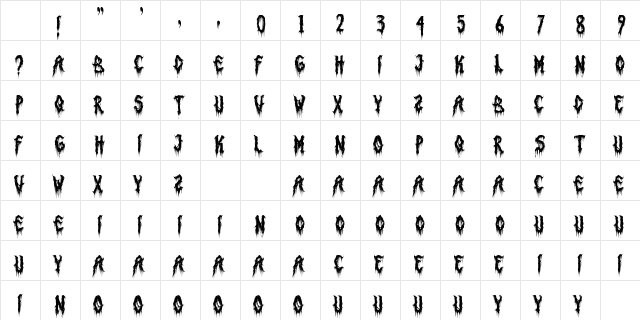
Complete Punish Sinner Horror Regular glyph index. Displaying only characters natively supported by Punish Sinner Horror Regular font.
Punish Sinner Horror carries an unsettling edge - its distorted letterforms are built to unsettle, perfectly suited to horror, Halloween, and dark creative work.
Font Pairing: Pair with a clean neutral sans-serif for body copy to let Punish Sinner Horror's character lead without overwhelming the composition.
Pro Tip: Use Punish Sinner Horror at larger display sizes for maximum impact. Consider generous tracking to let the disturbing character of each letterform breathe.